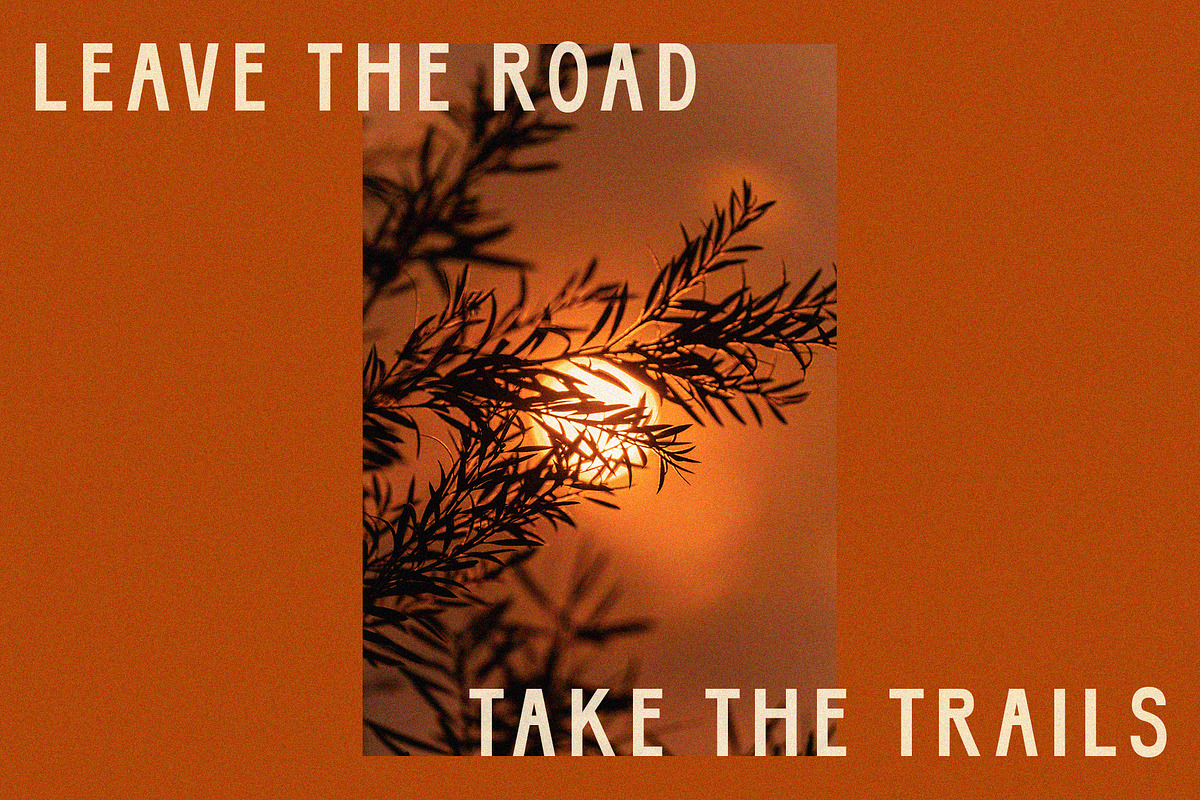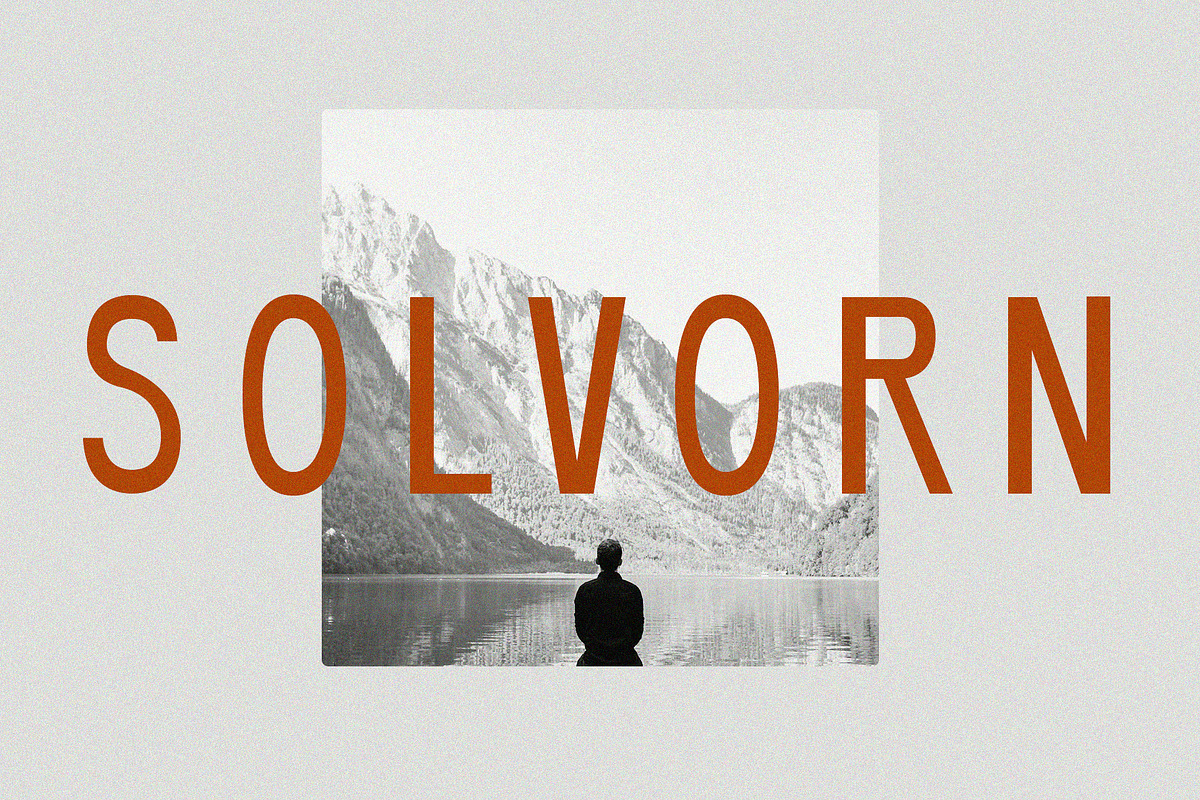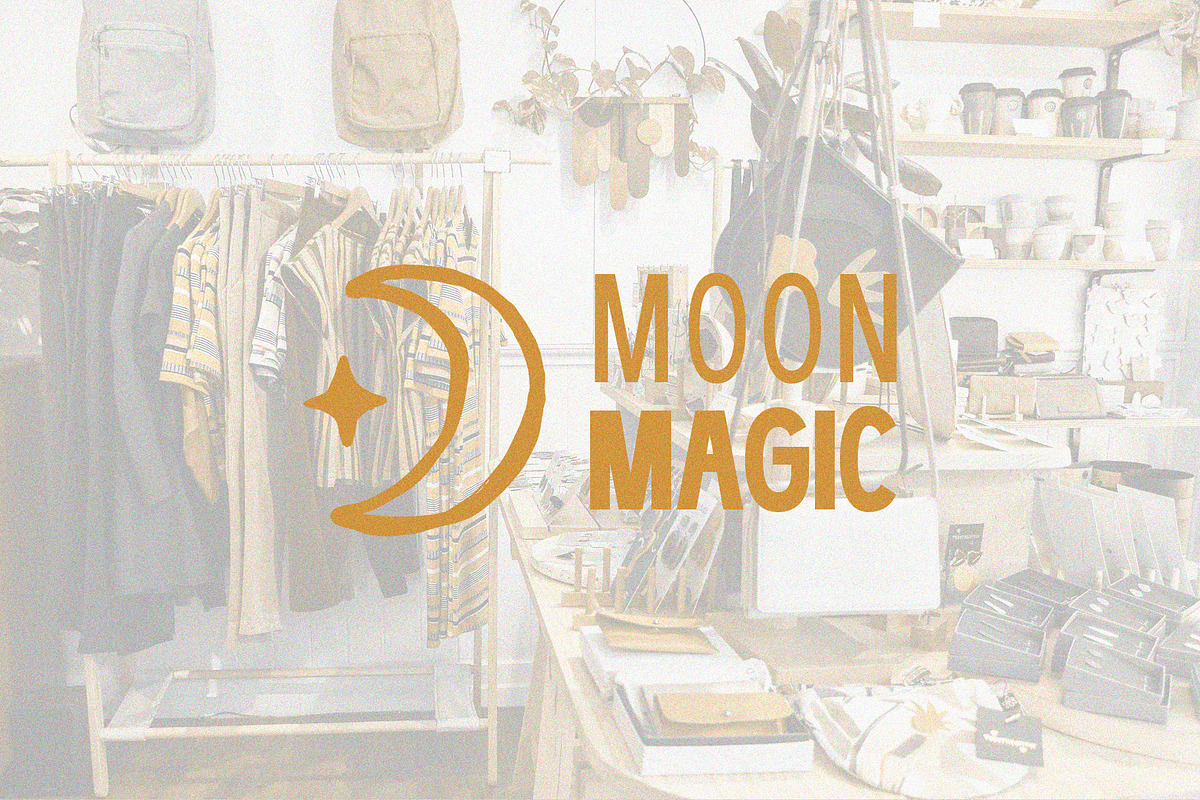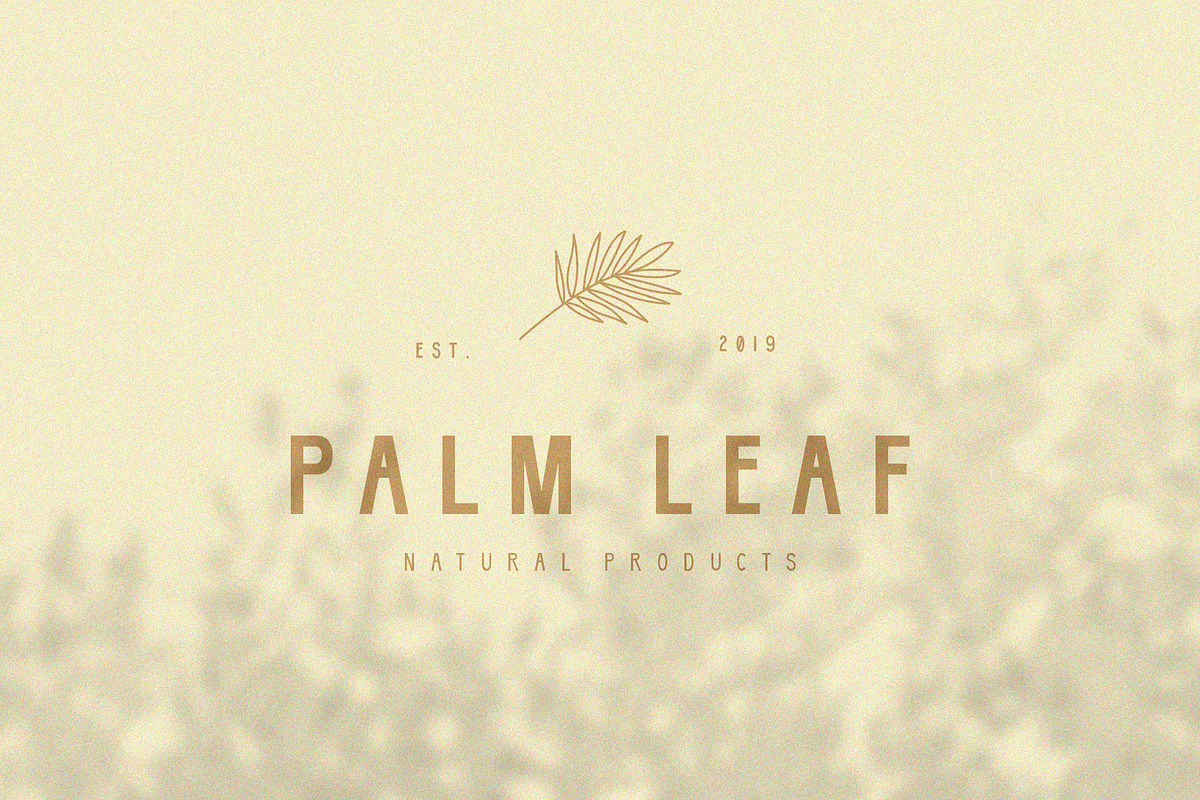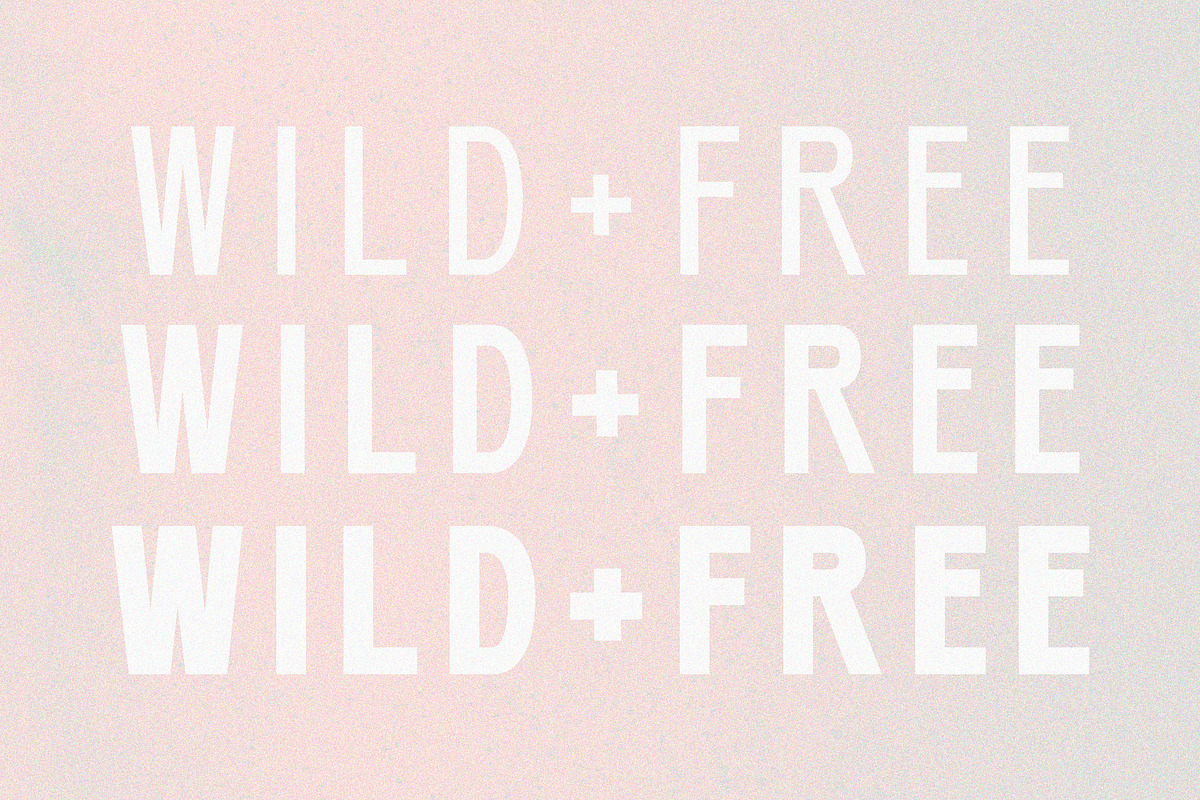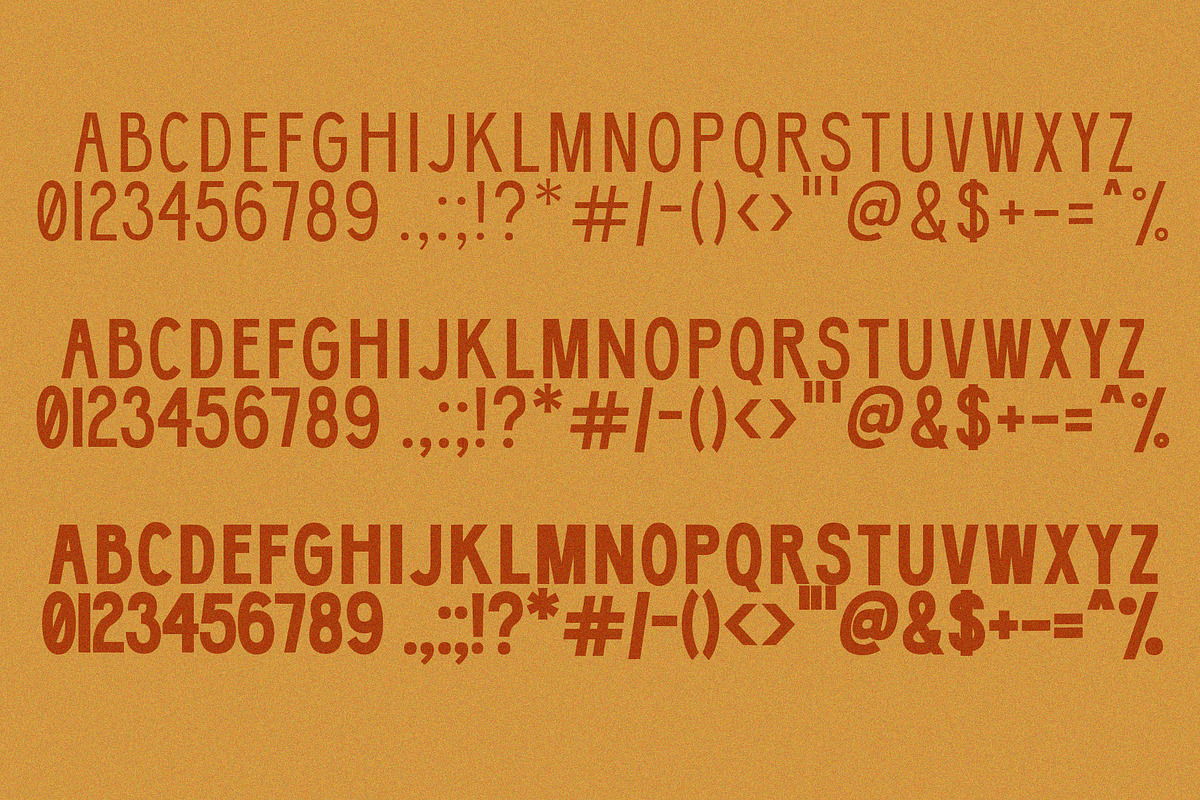
Solvorn | Tall + Quirky Sans Serif
Meet Solvorn! A tall and quirky sans serif perfect for logos, quotes, branding, social media and more.
- Solvorn light
- Solvorn regular
- Solvorn bold
- Uppercase characters
- Numbers + punctuation